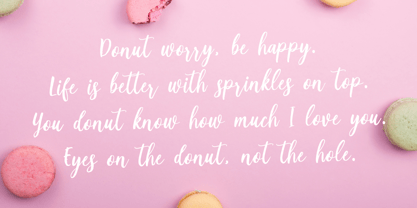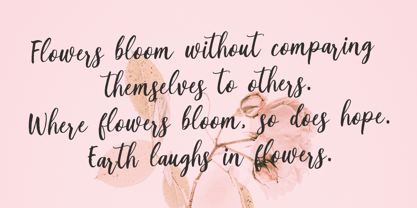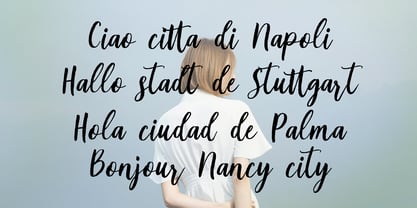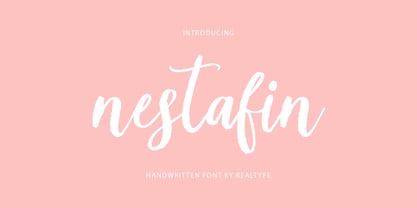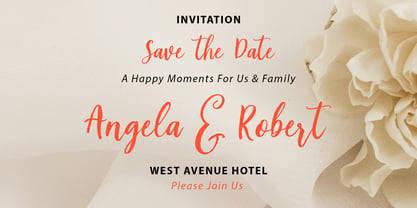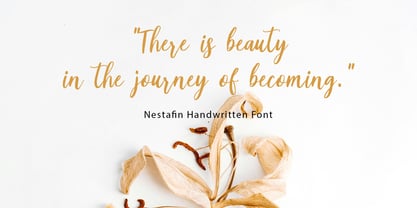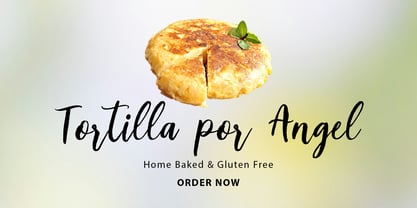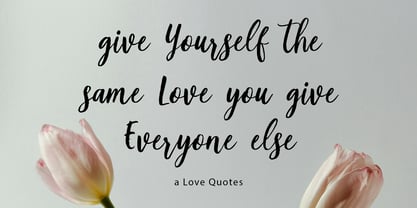
Nestafin
A família de fontes Nestafin foi desenhada por Alam Syahril e publicada pela Realtype. Nestafin contém 1 estilos. Saiba mais sobre esta família
Nestafin Brush Font Duo is suitable for any modern design such as for cards, invitations, announcements, seasonal designs, social media promotions, web design, branding and logo styling and more.
Handwriting Style: Featuring organic strokes and natural brushstrokes.
Feminine & Elegant Feel: Smooth curves and flowing connections create a sleek, sweet, and graceful look.